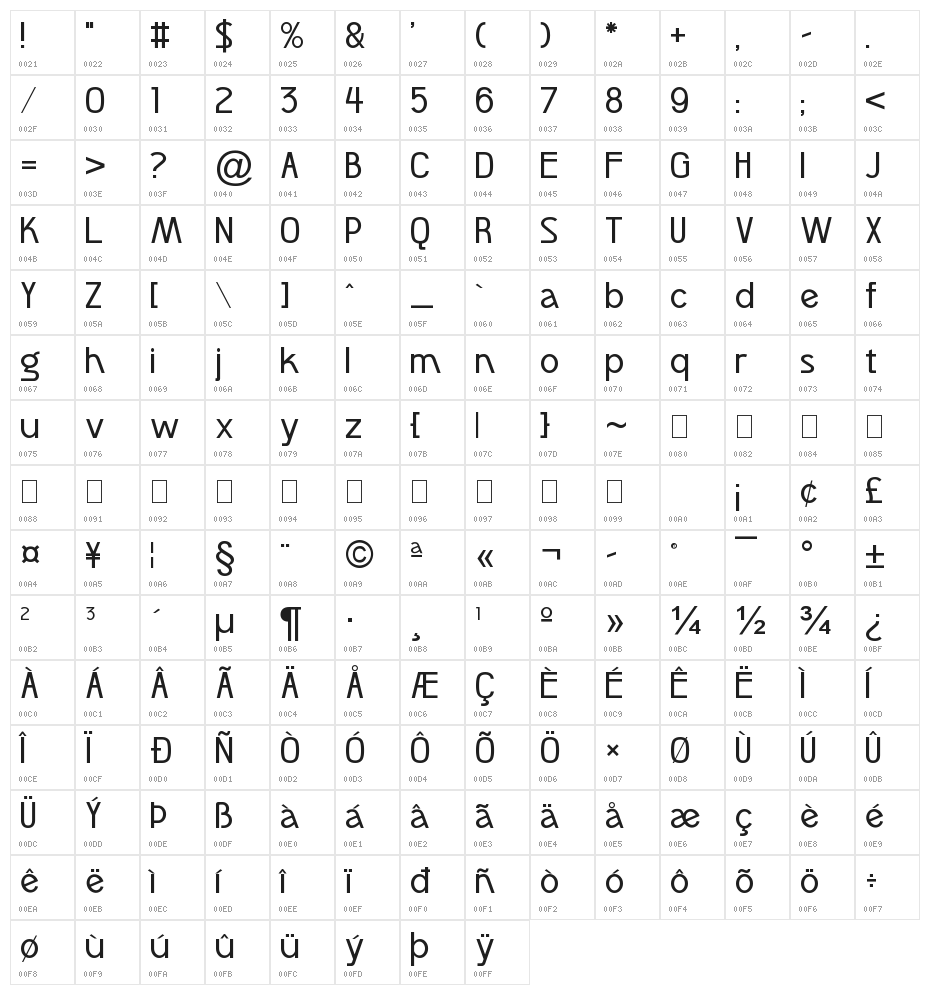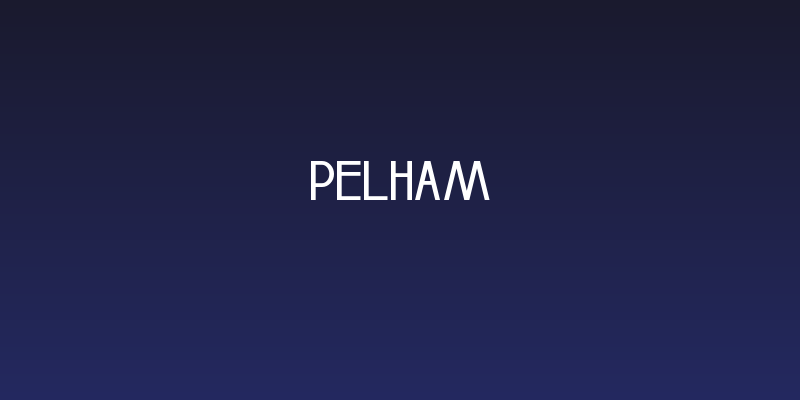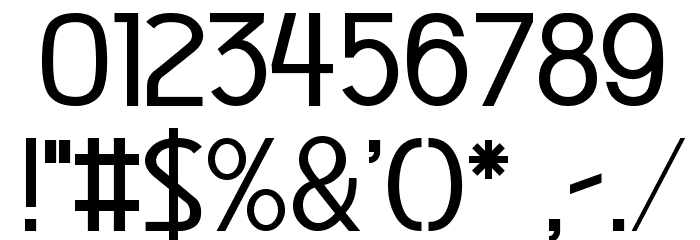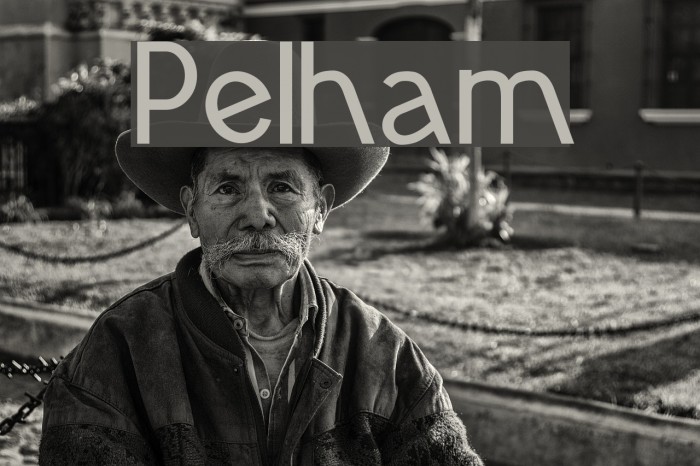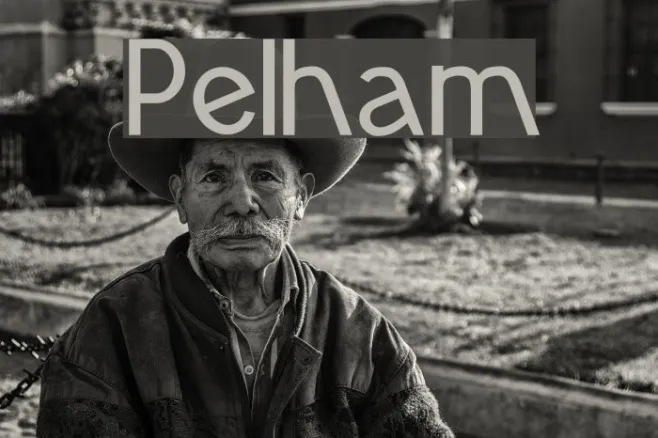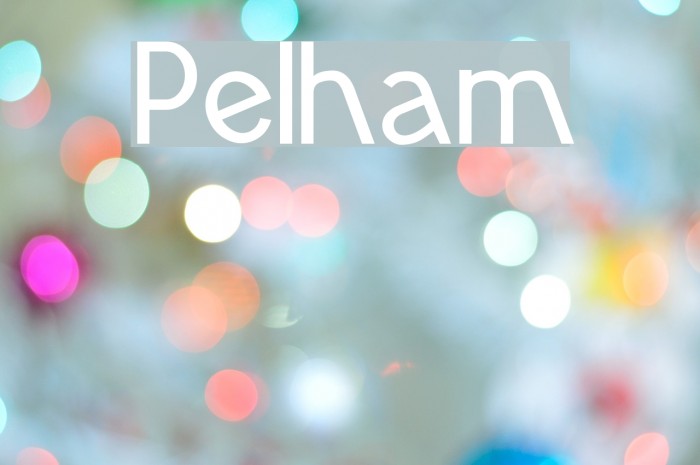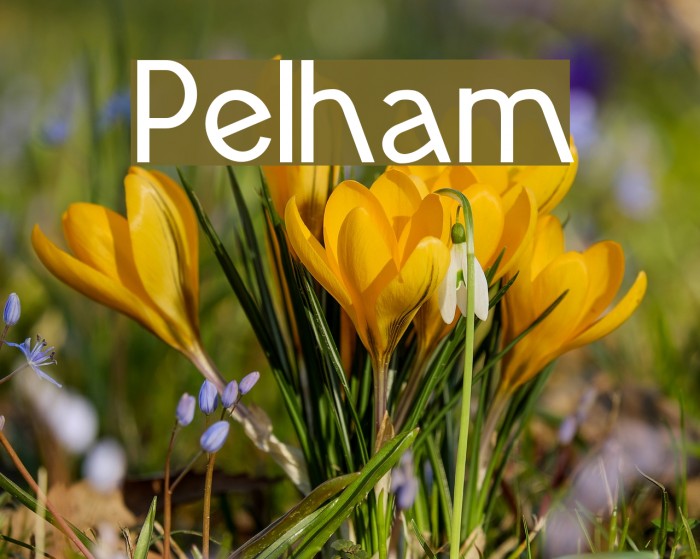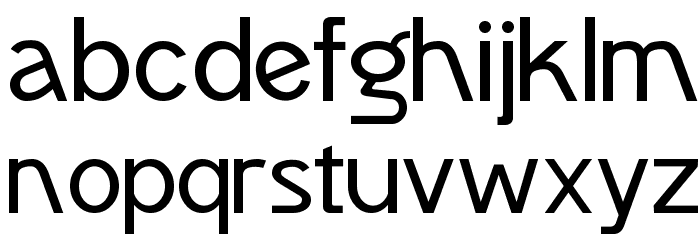
Pelham Font
Pelham Description
This font features a clean and modern sans-serif design with a geometric structure. The characters are well-balanced, offering a harmonious appearance that is both professional and approachable. The uppercase letters are tall and slightly condensed, while the lowercase letters maintain a consistent height with rounded edges, providing a friendly and contemporary feel. The numerals are clear and easy to read, making them suitable for various applications. Special characters are distinct and integrate seamlessly with the overall style, ensuring versatility in usage.
| Proposed Projects | Ideal for branding, web design, corporate materials, and editorial layouts. |